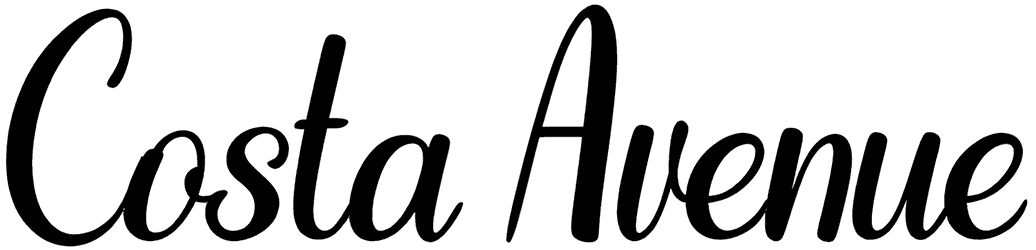
Costa Avenue Font
When you look at the Costa Avenue font, its elegant design keeps your eye staring. This script font’s letters have a circular shape with smooth edges, sending a pleasant vibe to the viewers.
The Costa Avenue font seems entertaining and can shine on several occasions, such as on posters, flyers, movie titles, and postcards. If you want to impact your audience in the first second, do not hesitate to download this attractive font.